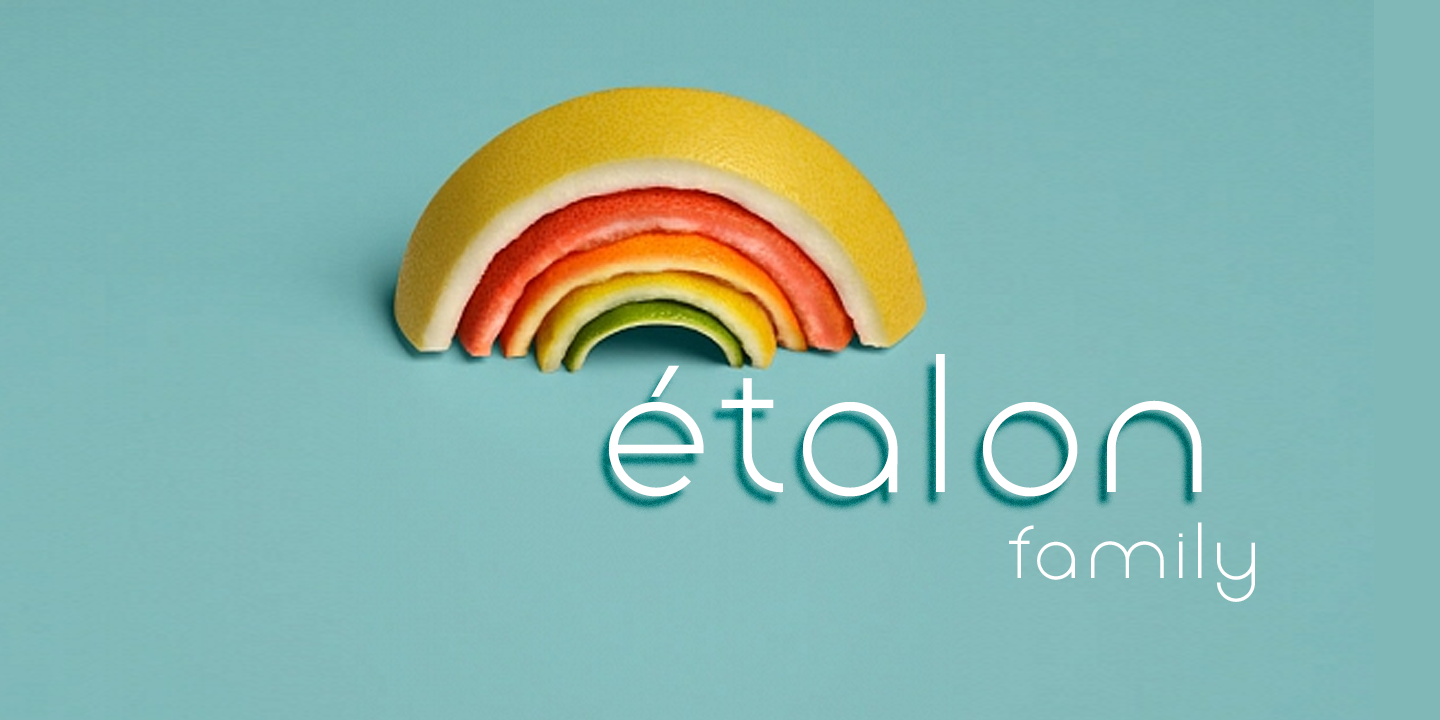
The Etalon Font is perfect for various design applications including luxury standard branding, premium quality certifications, excellence award graphics, high-end benchmark materials, gold standard marketing, superior performance presentations, elite membership signage, and prestigious quality assurance designs. This exemplary typeface works exceptionally well for brands establishing standards and projects requiring benchmark excellence with prestigious appeal.
What makes Etalon Font exciting is its exemplary and standard-setting character that instantly conveys superior quality and establishes the gold standard for excellence in any field. The font features precise letterforms with benchmark aesthetics and premium qualities that evoke feelings of superiority, prestige, and uncompromising quality standards. Its exemplary styling and standard-setting appearance make it perfect for brands that want to establish market leadership and connect with audiences who demand nothing less than the absolute best.
The Etalon Font family includes multiple weights and styles, offering designers flexibility for diverse premium applications. The family typically consists of regular, bold, light, and refined variations, along with excellence decorative elements and prestige ornaments, providing comprehensive coverage for projects that need both authority and visual distinction across different quality contexts.
Whether you're working on luxury certification services, premium quality brands, or excellence-focused campaigns, Etalon Font Free Download delivers the exemplary quality and visual prestige that modern standard-setting designers require. The font's benchmark-inspired design combined with its excellent readability makes it an essential tool for creating compelling visual communications that embody superior standards and bring the distinguished spirit of uncompromising excellence to life.